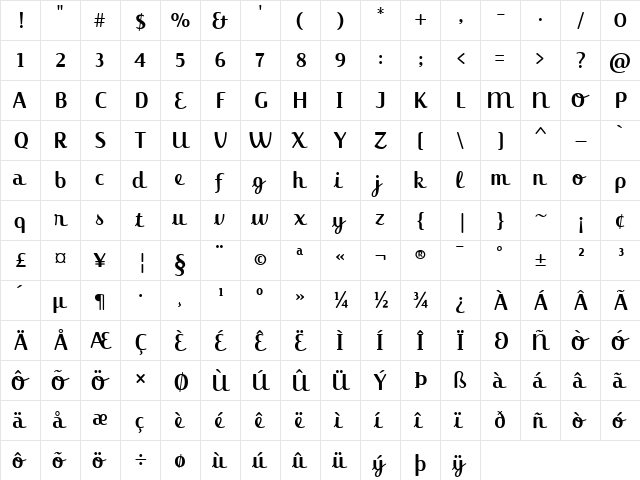
JackieAlternate Regular
Design Context for JackieAlternate Typeface
JackieAlternate is a composed and adaptable typeface that performs quietly and consistently across a wide range of design contexts.